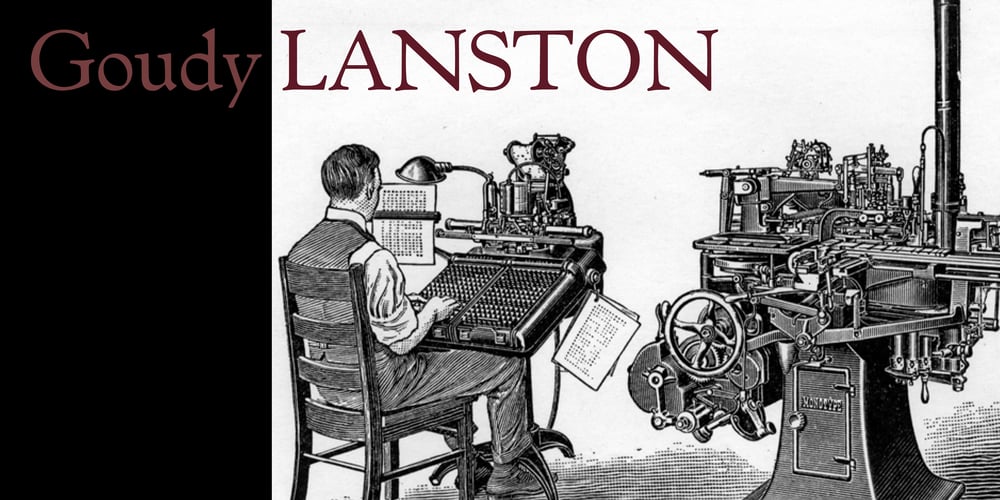
Goudy Lanston Font Family was designed by Steve Matteson and published by Matteson Typographics. Goudy Lanston contains 3 styles and family package options. Reimagined by Steve Matteson in 2025. Goudy Lanston was designed by Frederic Goudy for Lanston Monotype and the Caslon Typefoundry in 1912. Originally named “Antique” the typeface was sold to Lanston Monotype for machine casting. Goudy’s aim was to produce a typeface akin to Jenson’s Roman with a dark, rich texture and sturdy profile. The family includes text, subhead and display versions to optimize elegance at large sizes and rich color in text.